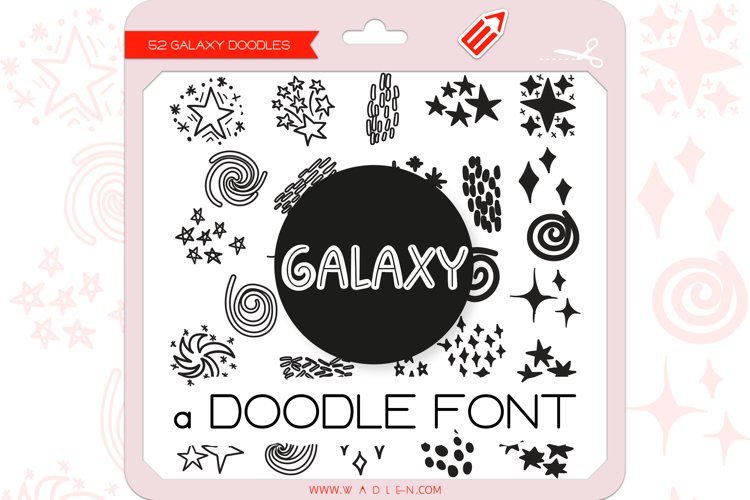
Galaxy is a unique and cute dingbats font. Add this font to your creative ideas and make your arts outstanding!
Galaxy dingbats font containing 52 hand-drawn doodles.